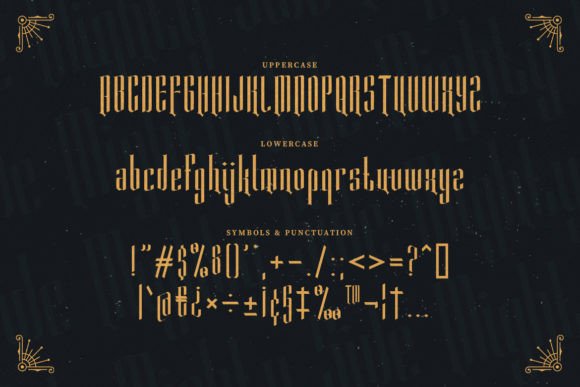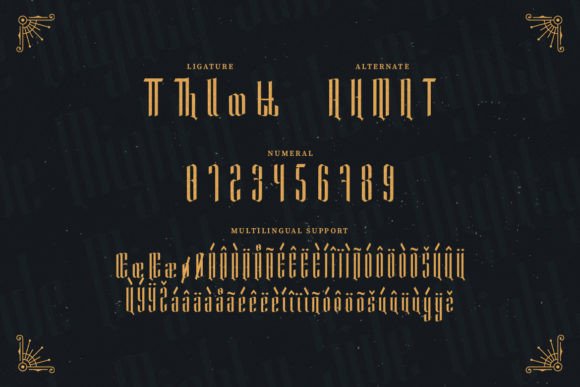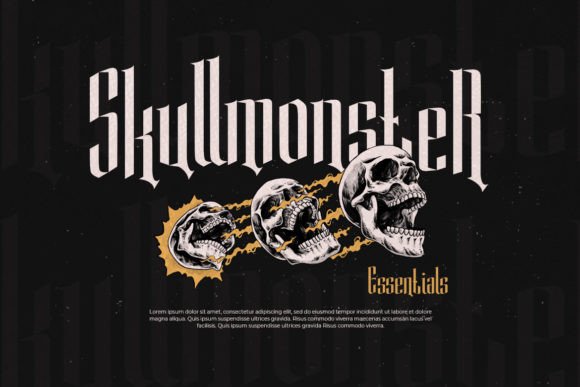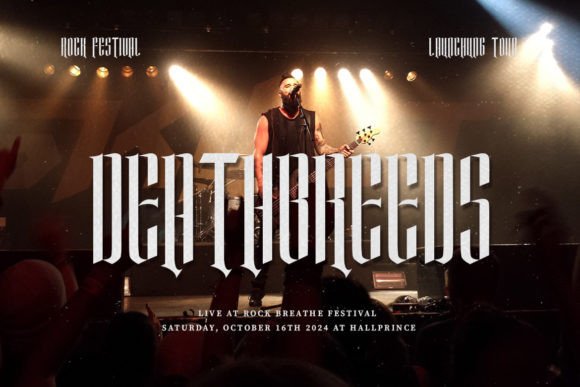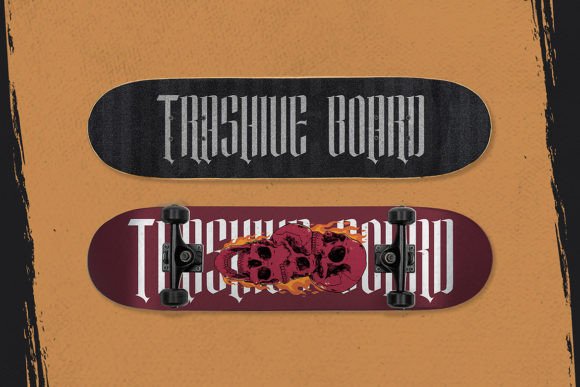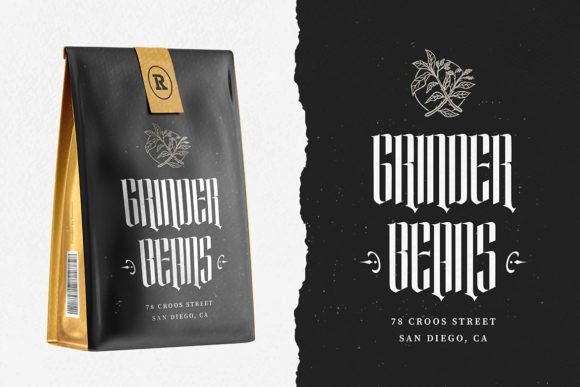
Introduction to Mighty Side Font
Experience the power and elegance of “Mighty Side” – a modern black letter font that merges tradition with contemporary design.
With its strong and distinctive letterforms, “Mighty Side” commands attention and exudes confidence Each character strikes a perfect balance between the rich history of Blackletter and a sleek, modern aesthetic, making it a versatile choice for branding, headlines, packaging, and more.